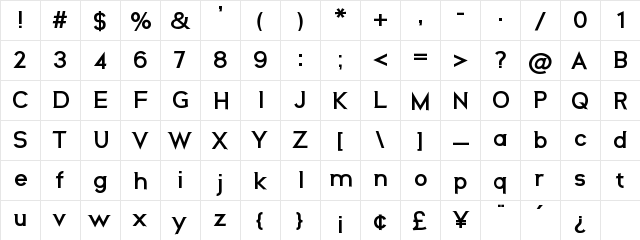
Neos Bold Regular
| Designer | Matt Swank |
Design Context for Neos Bold Typeface
Neos Bold takes a measured approach to typography — its balanced proportions and neutral character make it a reliable workhorse for both digital and print work. Its bold stroke weight gives it real presence on the page.